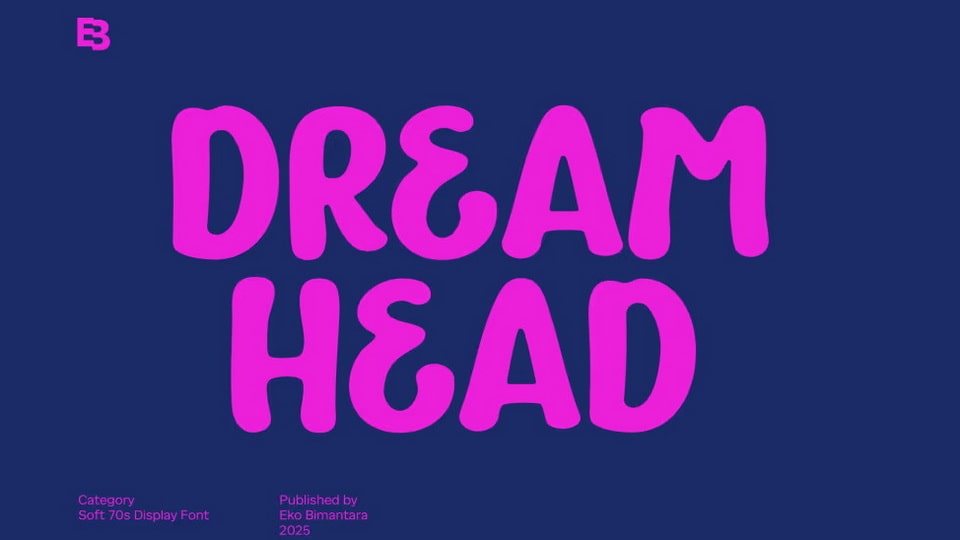
Download Dream Head font, a soft and bubbly 70s-inspired display typeface designed to radiate joy, optimism, and retro charm with its thick rounded shapes and mellow curves.